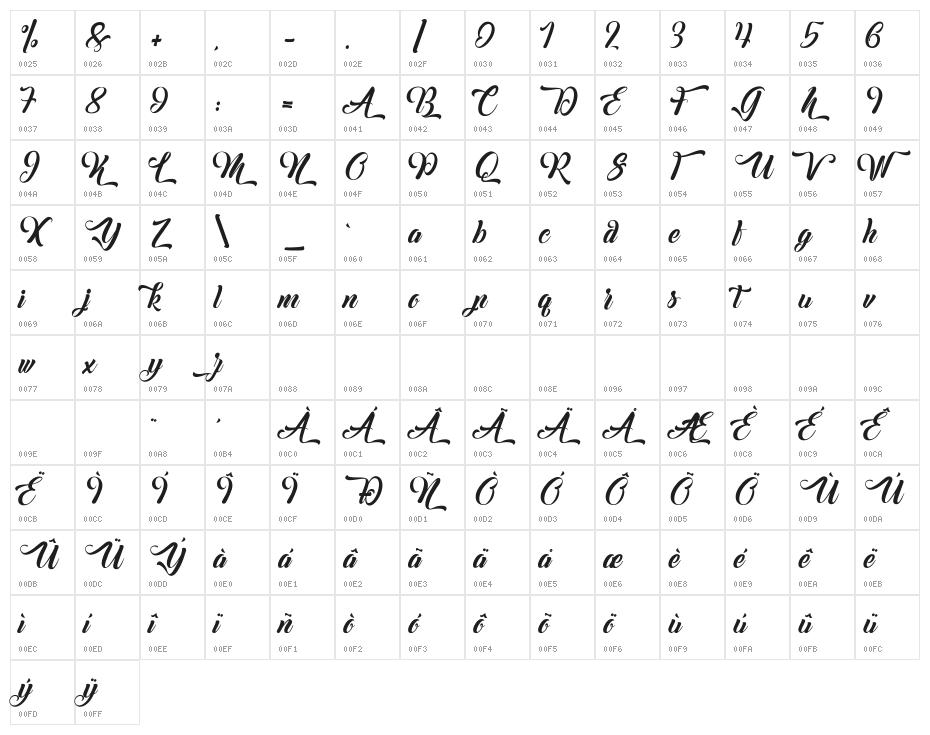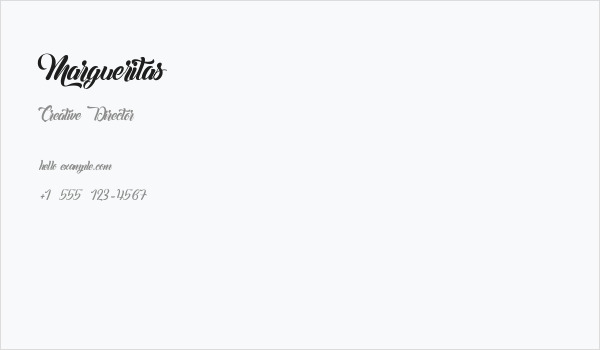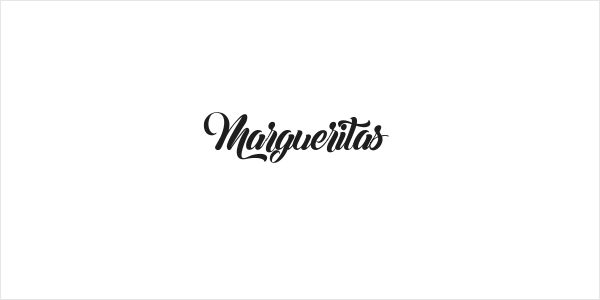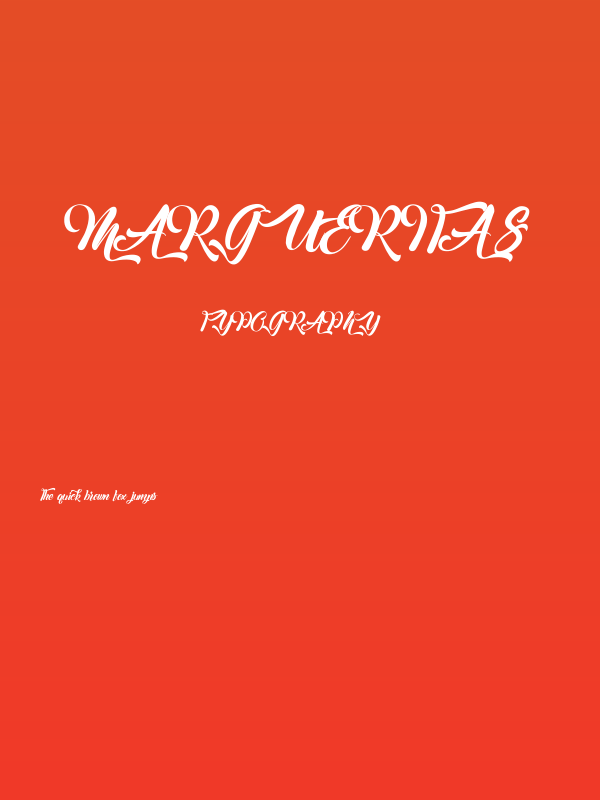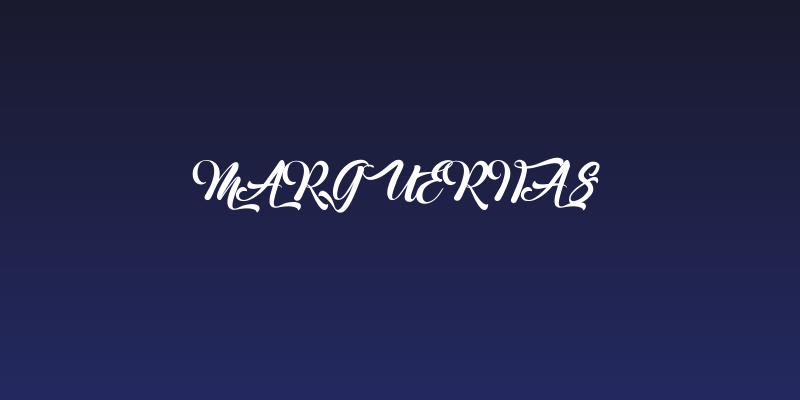
Margueritas Font
Margueritas Description
This elegant script font features flowing, cursive letters with a distinct calligraphic style. The uppercase letters are ornate and sweeping, while the lowercase letters maintain a smooth, connected flow. The numerals are stylishly curved, complementing the overall aesthetic. Special characters are designed with flair, adding to the decorative nature of the font. The strokes are bold and consistent, providing a strong visual impact. This font is ideal for projects that require a touch of sophistication and elegance, such as wedding invitations, branding, and high-end product packaging.
| Overall Style | Elegant, Decorative |
| Proposed Projects | Wedding invitations, luxury branding, elegant product packaging, and decorative signage. |